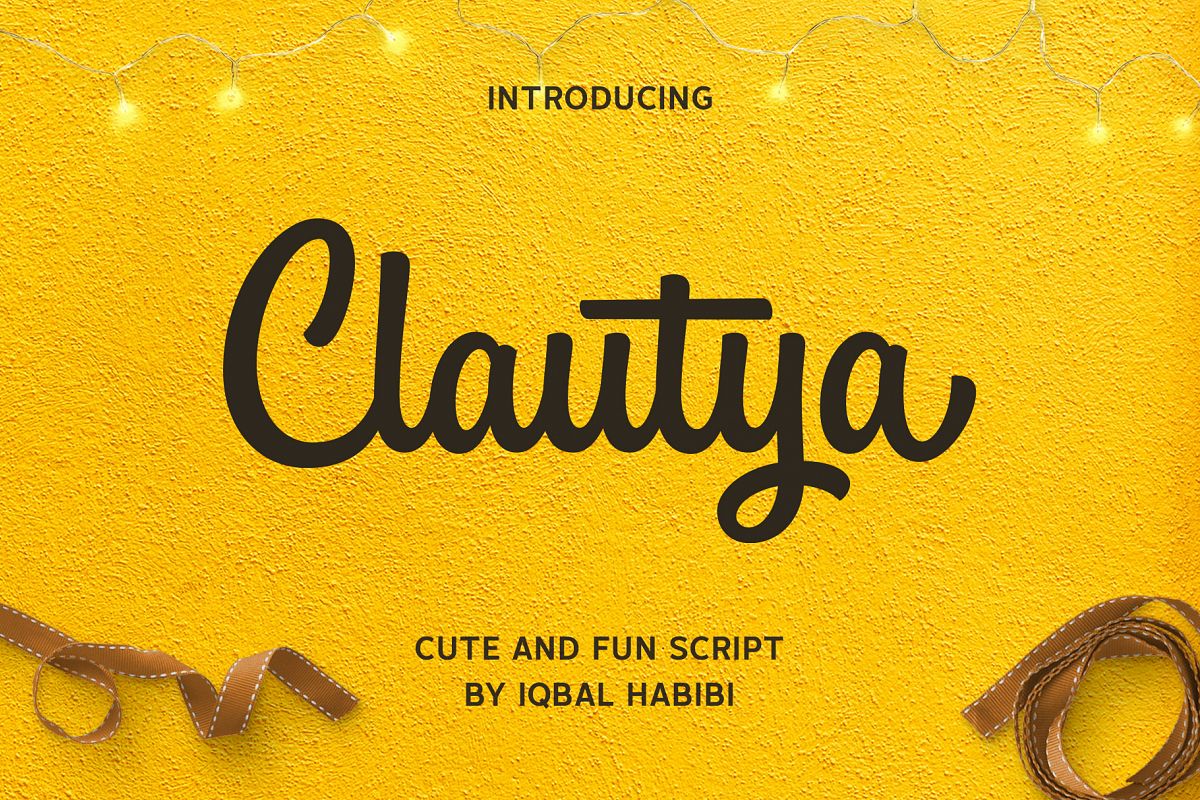
Clautya
Clautya is a cute and fun handdrawn script. Clautya is great for create lettering works, logotype, tshirt design, packaging design, signboard, poster, quote and many more.
Clautya features :
-Alternates and Ligatures
-Number, Punctuation and Symbols
-Accented Character (ÁÂÄÀÅÃÆÇÐÉÊËÈÍÎÏÌÑÓÔÖÒØÕŒÚÛÜÙẀŴẄẂÝŶŸỲáâäàåãæçđéêëèíîïìñóôöòøõœúûüùẃŵẅẁýŷÿỳ)